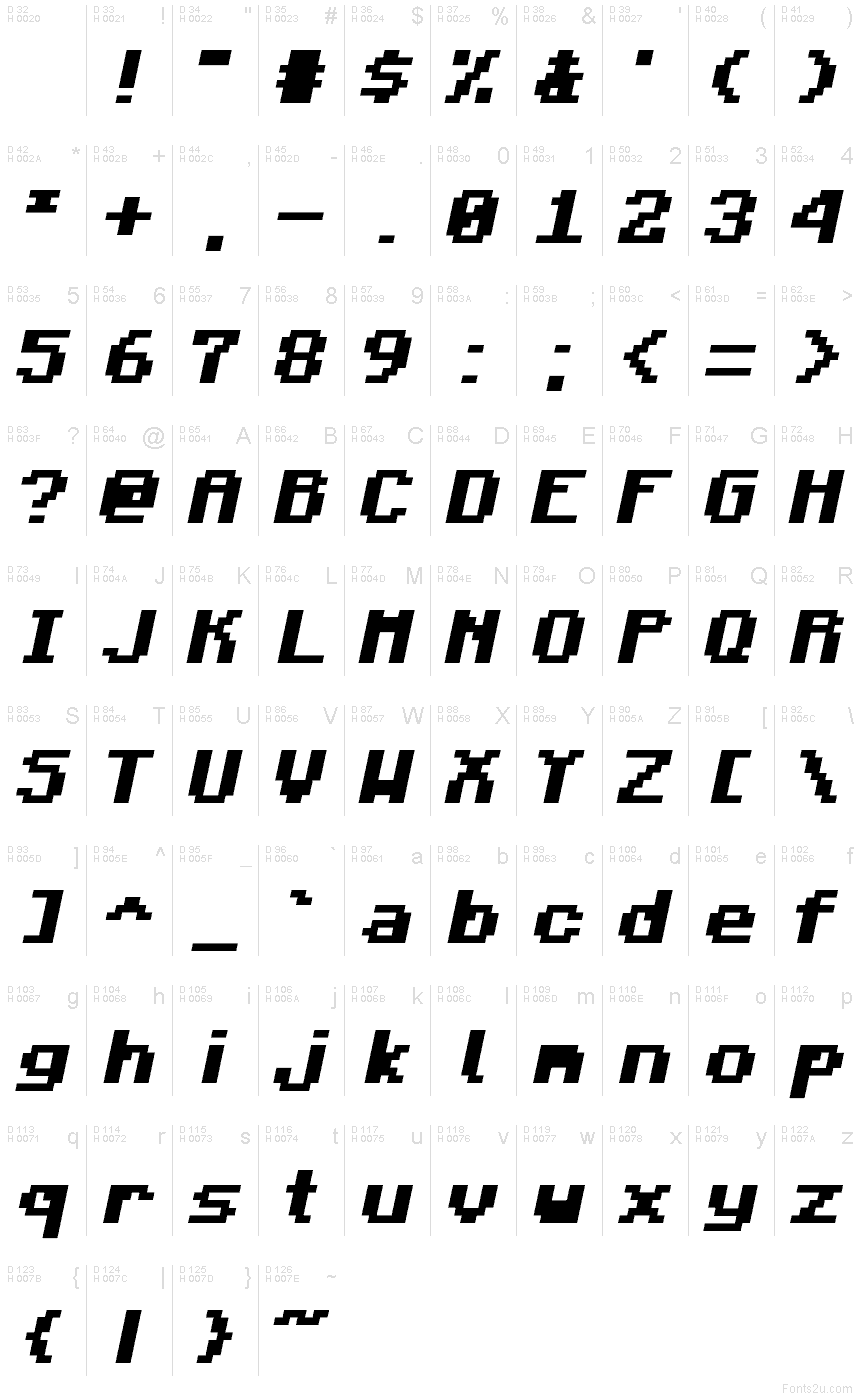
mac's Minecraft Bold Italic
Mac's Minecraft Bold Italic font is a striking pixelated typeface by Macimas, embodying an authentic Minecraft look. Its bold, expanded characters feature geometric block shapes and sharp outlines for elevated readability in both headers and paragraph text. Deck out your next design project with this digital-inspired retro style beautiful for younger audiences.
❤️ **Main** - This package features the Minecraft font with bold and italic styles.
?️ **Tweaked** - This variant modifies the main package to enhance the readability of certain bold characters.
✨ **Extended** - A playful experiment that adds more characters to the main package for fun.